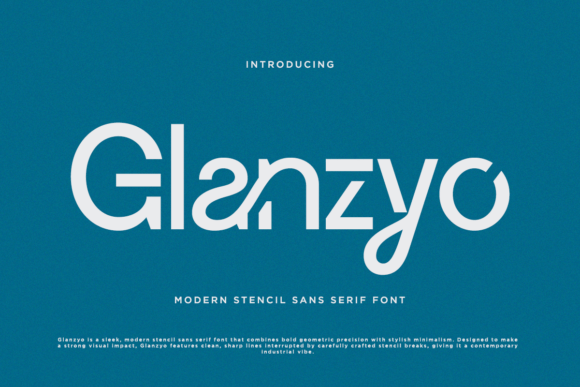
Glanzyo Font: A Striking Geometric Stencil Typeface for Modern Design
In the world of typography, fonts play a crucial role in conveying messages, expressing emotions, and creating brand identities. With the ever-evolving design landscape, it’s essential to stay ahead of the curve with fresh and innovative typography. One such font that has been making waves in the design community is Glanzyo, a striking geometric stencil typeface that embodies the perfect blend of clarity, modernity, and technical sophistication.
What is Glanzyo Font?
Glanzyo is a geometric stencil typeface characterized by clean lines, uniform stroke widths, and a refined tech-industrial aesthetic. This font is ideal for designers who value clarity with a strong presence, making it perfect for a wide range of design applications. The sharp legibility and contemporary feel of Glanzyo make it well-suited for futuristic branding, interface-driven designs, or bold editorial layouts.
Key Features of Glanzyo Font
- Clean Lines and Uniform Stroke Widths: Glanzyo’s geometric design ensures that every line and stroke is precise and uniform, providing a sense of technical sophistication and modernity.
- Refined Tech-Industrial Aesthetic: The font’s industrial feel is balanced by a refined elegance, making it suitable for a wide range of design applications.
- Sharp Legibility: Glanzyo’s sharp and clear letterforms ensure that your message is conveyed with precision, even at smaller font sizes.
- Rounded Counters and Harmonious Proportions: The font’s rounded counters and balanced proportions create a visually appealing and harmonious look that’s both innovative and reliable.
- PUA-Encoded: Glanzyo is PUA-encoded, ensuring effortless access to all glyphs, swashes, and alternate characters, allowing for easy customization of your designs.
Ideal Design Applications for Glanzyo Font
Glanzyo’s versatility makes it suitable for a wide range of design applications, including:
- Futuristic Branding: Create a bold and modern brand identity with Glanzyo’s sharp and futuristic aesthetic.
- Interface-Driven Designs: Use Glanzyo to create intuitive and user-friendly interfaces for digital products and applications.
- Bold Editorial Layouts: Add a touch of modernity and sophistication to your editorial designs with Glanzyo’s bold and geometric letterforms.
- Cutting-Edge Startups: Establish a strong brand presence with Glanzyo’s innovative and technical aesthetic.
- Sleek Modern Product Branding: Use Glanzyo to create a modern and sophisticated brand identity for your product or service.
Benefits of Using Glanzyo Font
Glanzyo offers several benefits to designers, including:
- Clarity and Legibility: Glanzyo’s sharp and clear letterforms ensure that your message is conveyed with precision.
- Modernity and Sophistication: The font’s geometric design and refined aesthetic make it perfect for modern and sophisticated designs.
- Versatility: Glanzyo’s versatility makes it suitable for a wide range of design applications.
- Easy Customization: The font’s PUA-encoded design ensures effortless access to all glyphs, swashes, and alternate characters.
Tips and Tricks for Using Glanzyo Font
To get the most out of Glanzyo, here are some tips and tricks:
- Experiment with Font Sizes: Glanzyo’s sharp legibility makes it suitable for a wide range of font sizes, from small to large.
- Play with Color: Use Glanzyo’s geometric design to create bold and colorful designs that grab attention.
- Mix and Match: Combine Glanzyo with other fonts to create unique and interesting typography.
In conclusion, Glanzyo is a striking geometric stencil typeface that offers a unique blend of clarity, modernity, and technical sophistication. With its sharp legibility, refined aesthetic, and versatility, Glanzyo is perfect for designers who want to create bold and modern designs that stand out from the crowd. Whether you’re designing for a cutting-edge startup or sleek modern product branding, Glanzyo is the perfect choice.